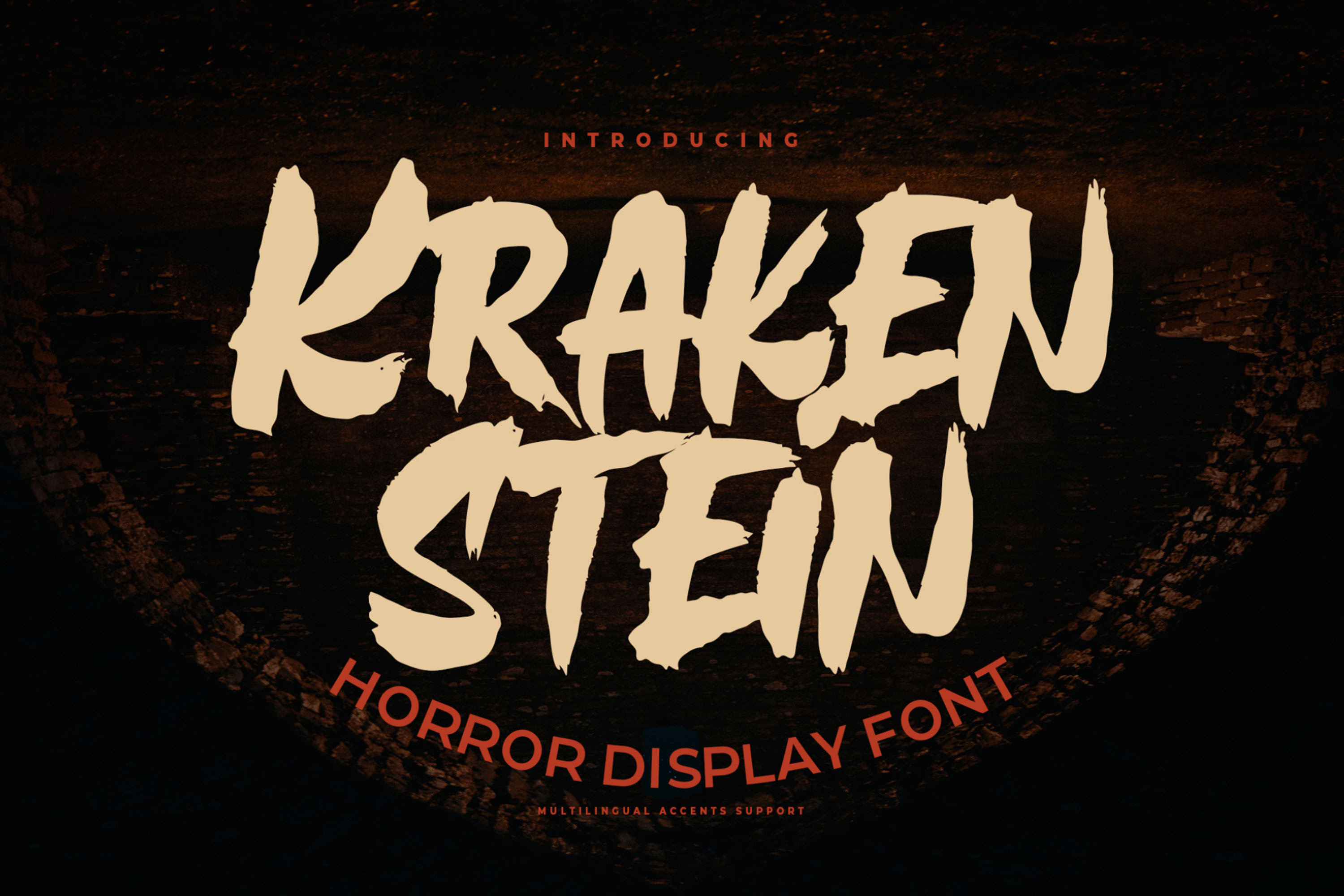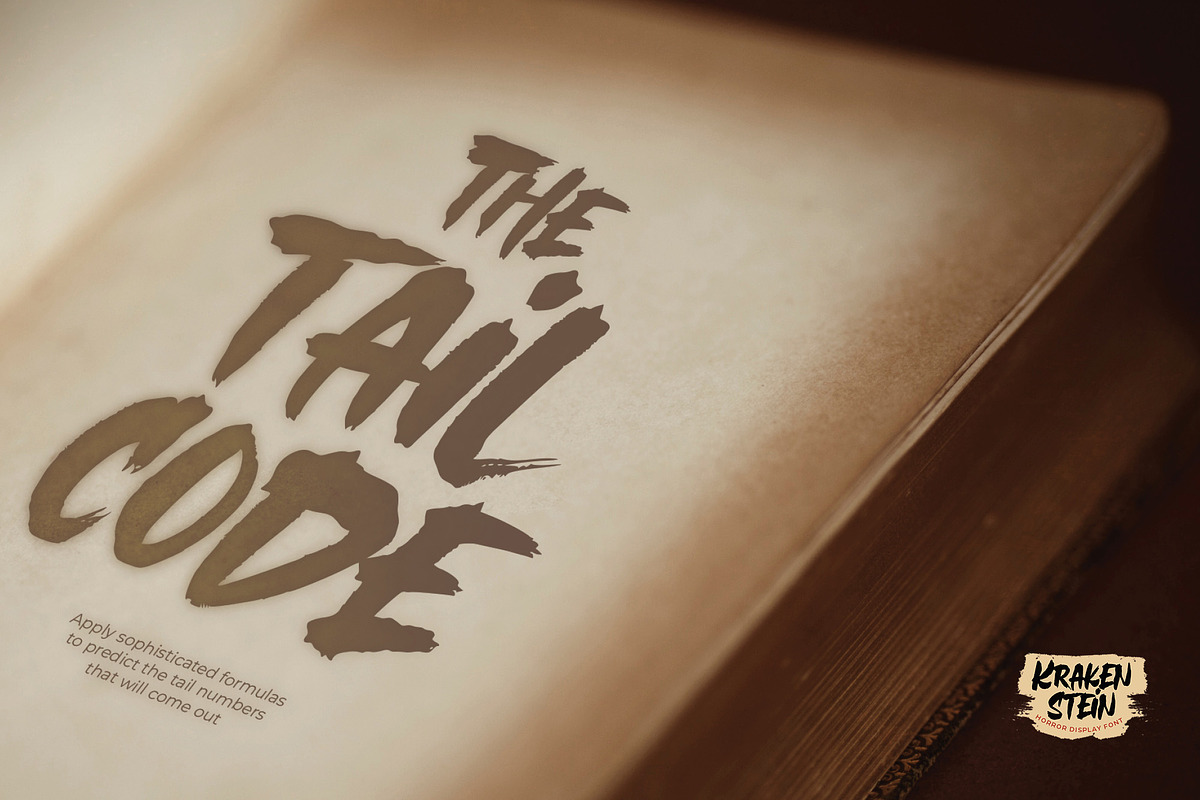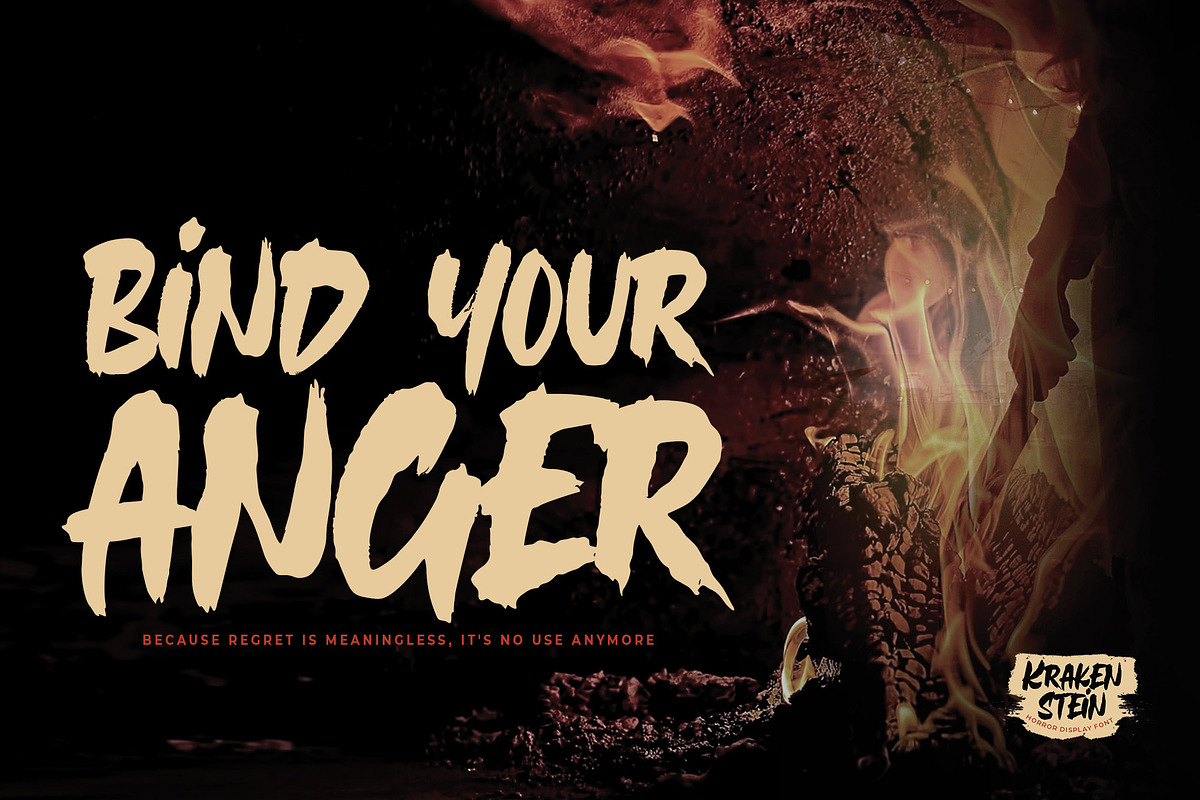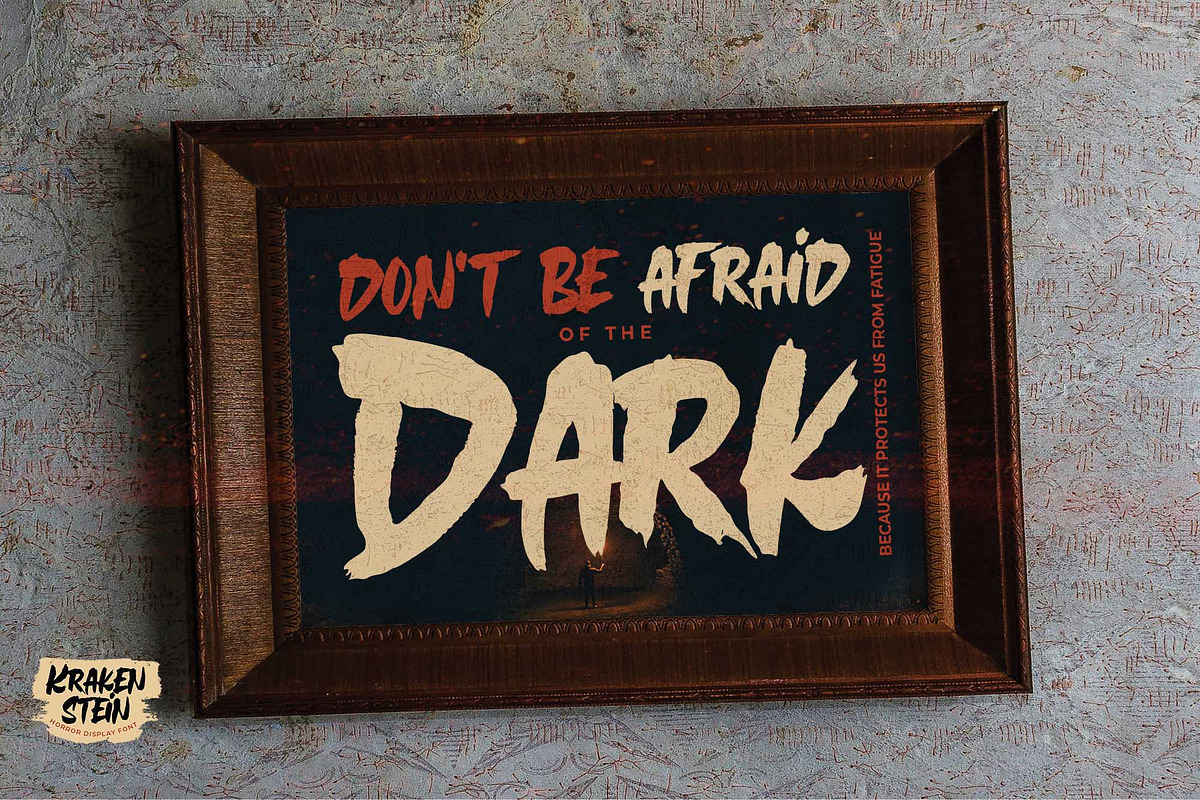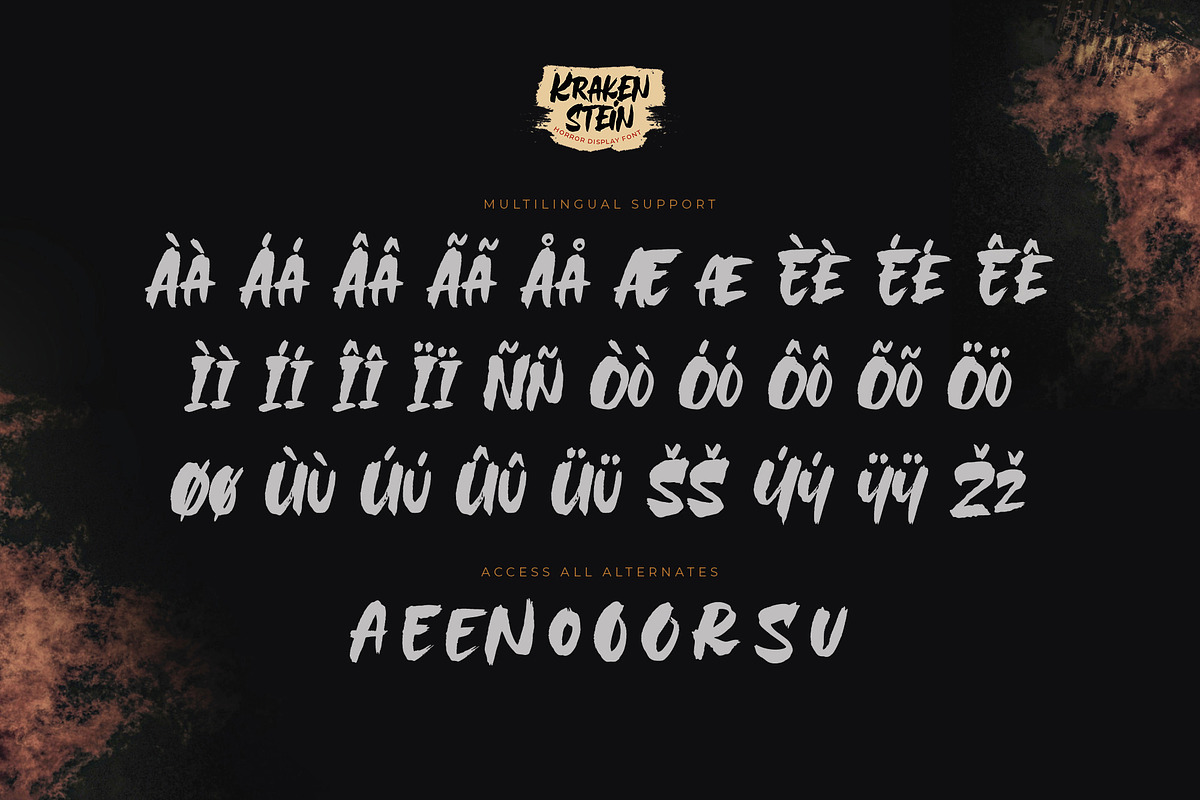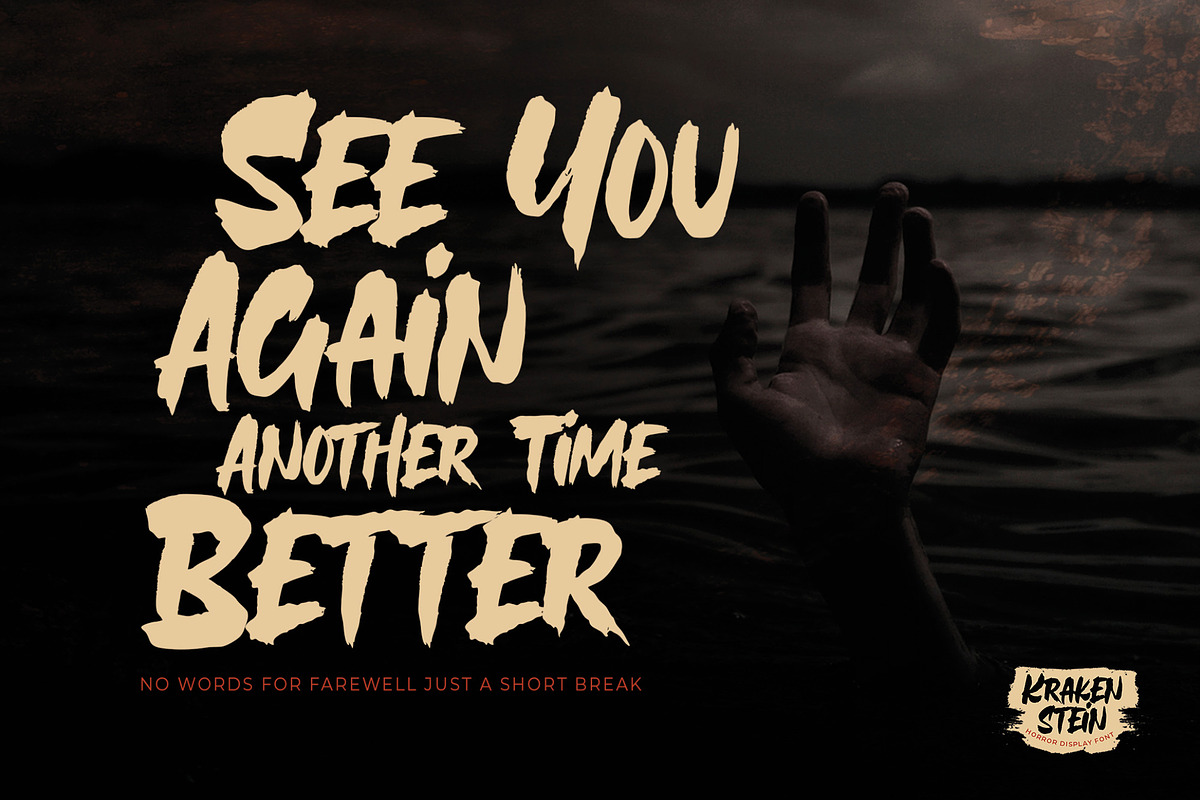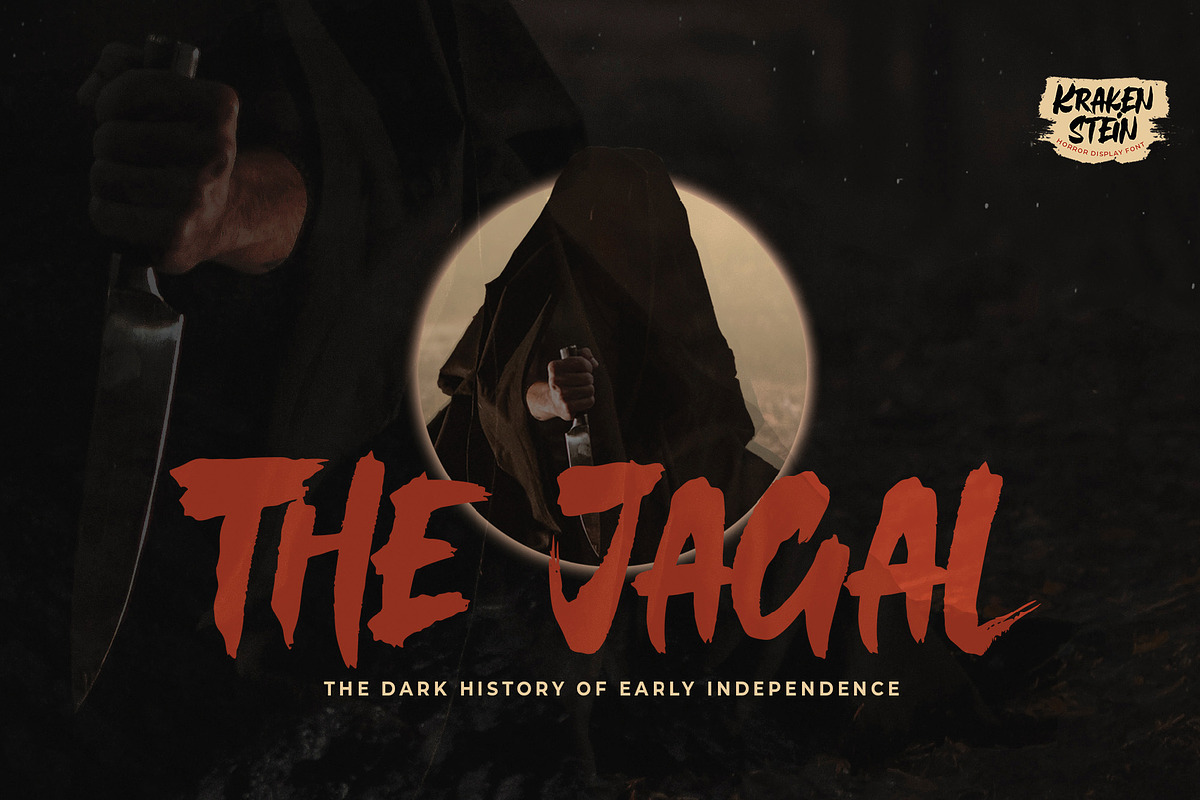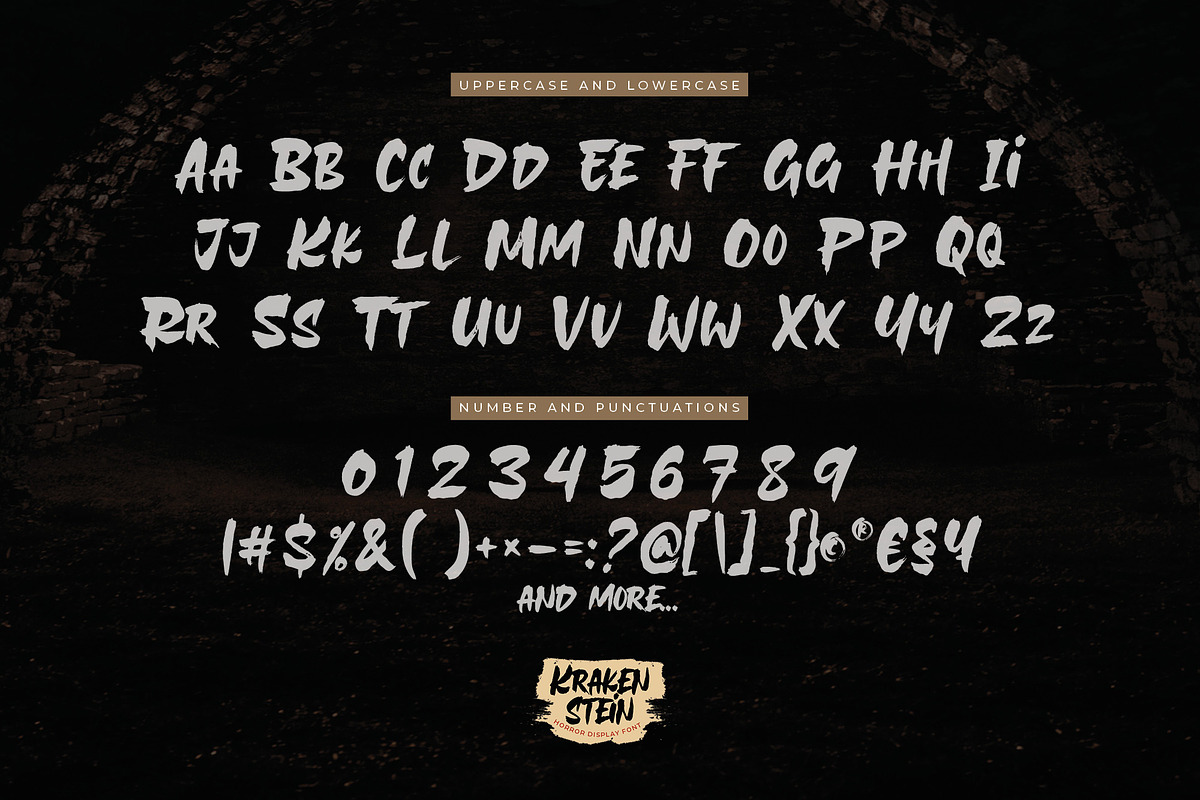
Krakenstein - Horror Display Font
Hello Everyone, introduce our new product Font Krakenstein This Is Horror Display Font.This is a Textured Natural Style and classy style with a clear style and dramatic movement. This font Krakenstein is great for your next creative project such as logos, printed quotes, invitations, cards, product packaging, headers, Logotype, Letterhead, Poster, Design this font is great for your creative projects such as watermark on photography, and perfect for logos & branding, invitation,advertisements,product designs, stationery, wedding designs,label ,product packaging, special events or anything that need handwritting taste. That is has charming, authentic and relaxed characteristic more natural look to your text. You can activate 10 Alternate glyphs OpenType panel.
- Alternate glyphs